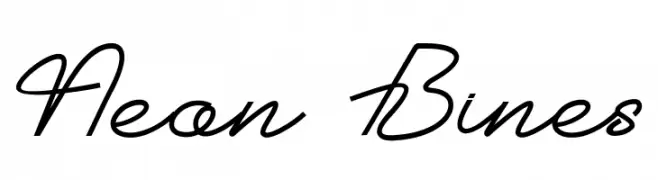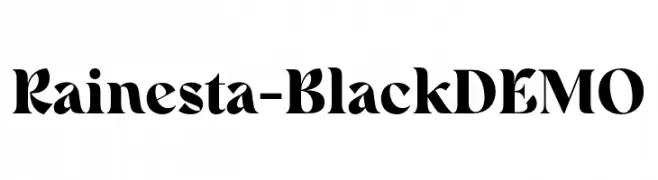
A playful, blocky font inspired by interlocking bricks, perfect for creative projects.
A modern cursive font with elegant, flowing lines and a handwritten style.
A bold, playful, and hand-drawn font with rounded, thick characters.
A bold, decorative font with intricate line work and three-dimensional shadowing.
A bold, modern font with horizontal line accents for a dynamic look.
A tech-inspired font with characters integrated into laptop icons and a scanline effect.
A bold, flowing script font with a lively handwritten style.
A bold, high-contrast serif font with sharp serifs and dramatic style.
A playful and elegant script font with dynamic strokes and whimsical swashes.
A bold, expressive handwritten font with brush-like strokes.